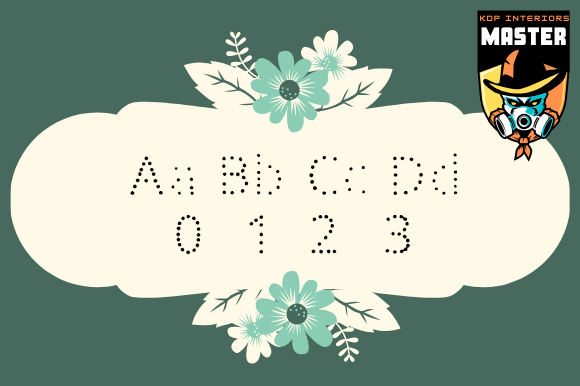
Introduction to My Dotatos Font
My Dotatos is a whimsical display font.
Use this dotted font for all your teaching materials .
Key Features of My Dotatos Font
Why Choose My Dotatos Font?
My Dotatos Font offers exceptional quality and versatility, making it a valuable addition to your design toolkit. Whether you’re creating for personal projects or commercial use, My Dotatos Font delivers professional results.